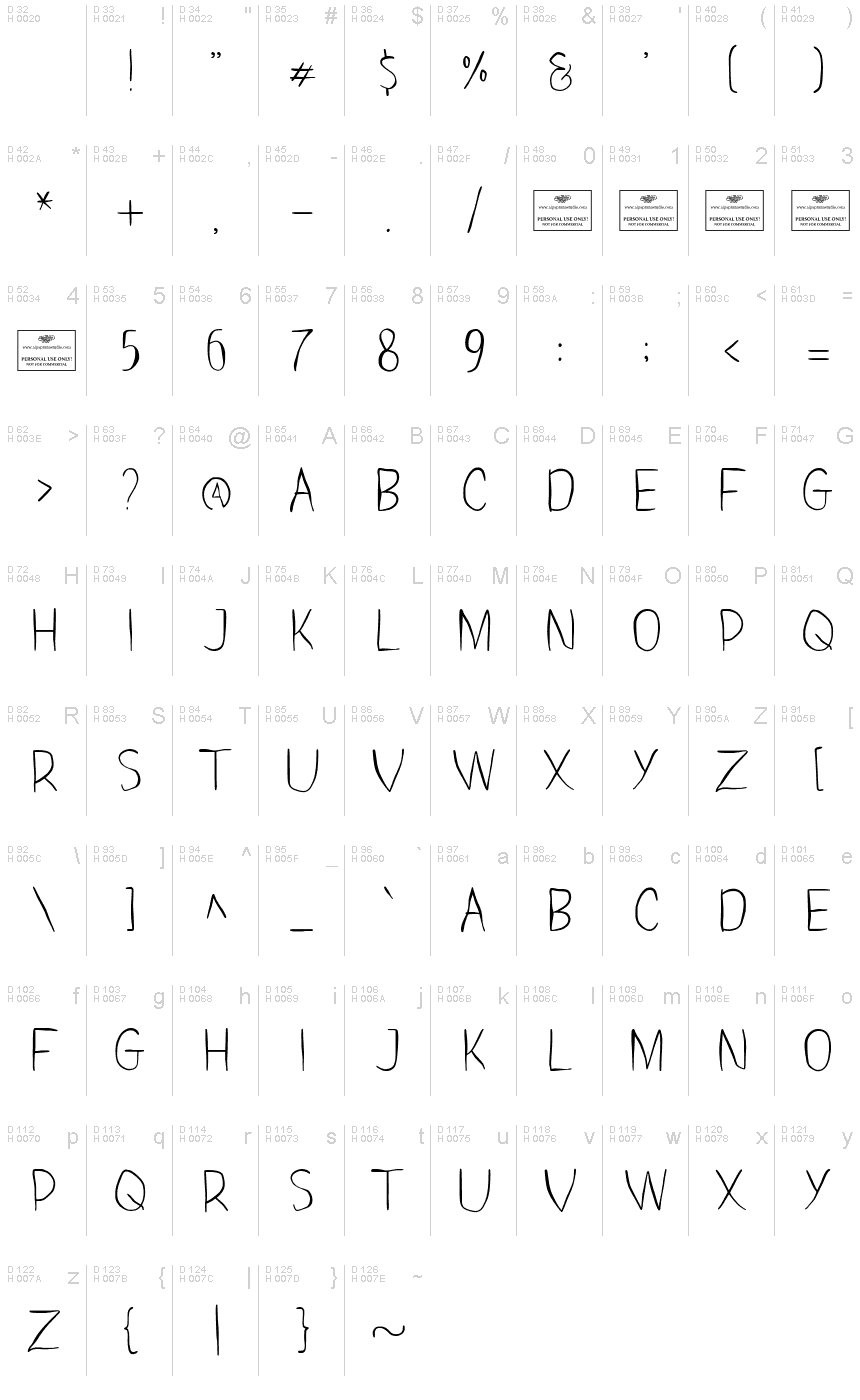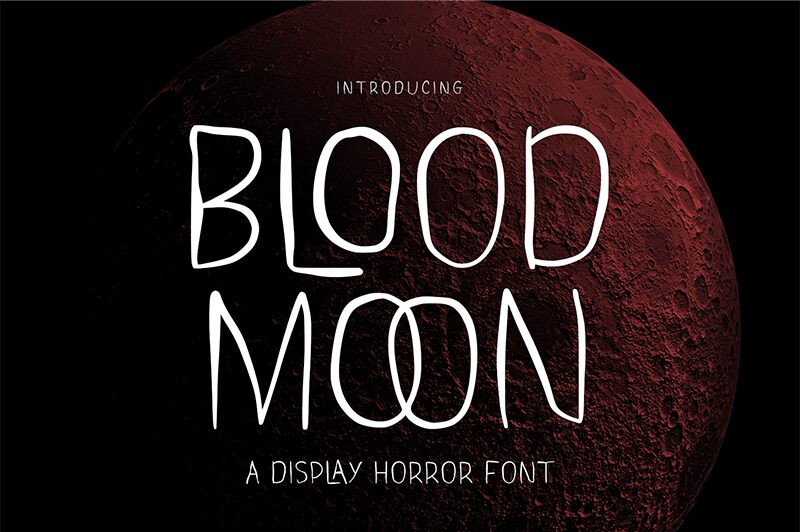
Blood Moon
Unleash the spine-chilling elegance of Blood Moon, a masterful creation by Alpaprana Studio that transcends the ordinary. This semi-light Halloween-themed font weaves a tapestry of terror and beauty, perfectly poised to elevate your creative endeavors. Blood Moon's modern twist on horror typography offers an exquisite blend of fright and finesse, making it an ideal choice for branding, logo design, and captivating lettering.
Whether you're crafting a logotype that demands attention or designing apparel that speaks volumes, Blood Moon stands out with its haunting charm. It seamlessly integrates into magazine layouts, packaging designs, posters, shopping bags, t-shirts, book covers, photography backdrops, and special event materials. Dare to invoke the spirit of Blood Moon in your next project; its versatility will transform your work into an unforgettable piece of art.